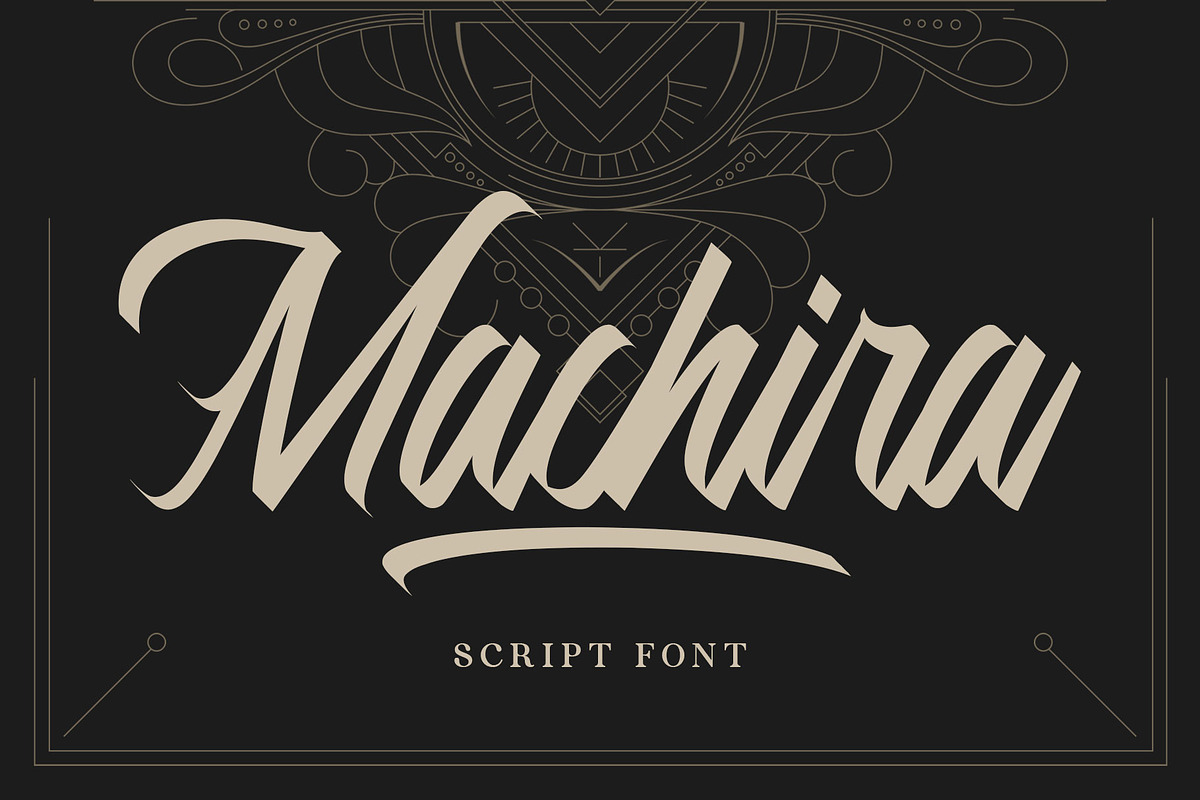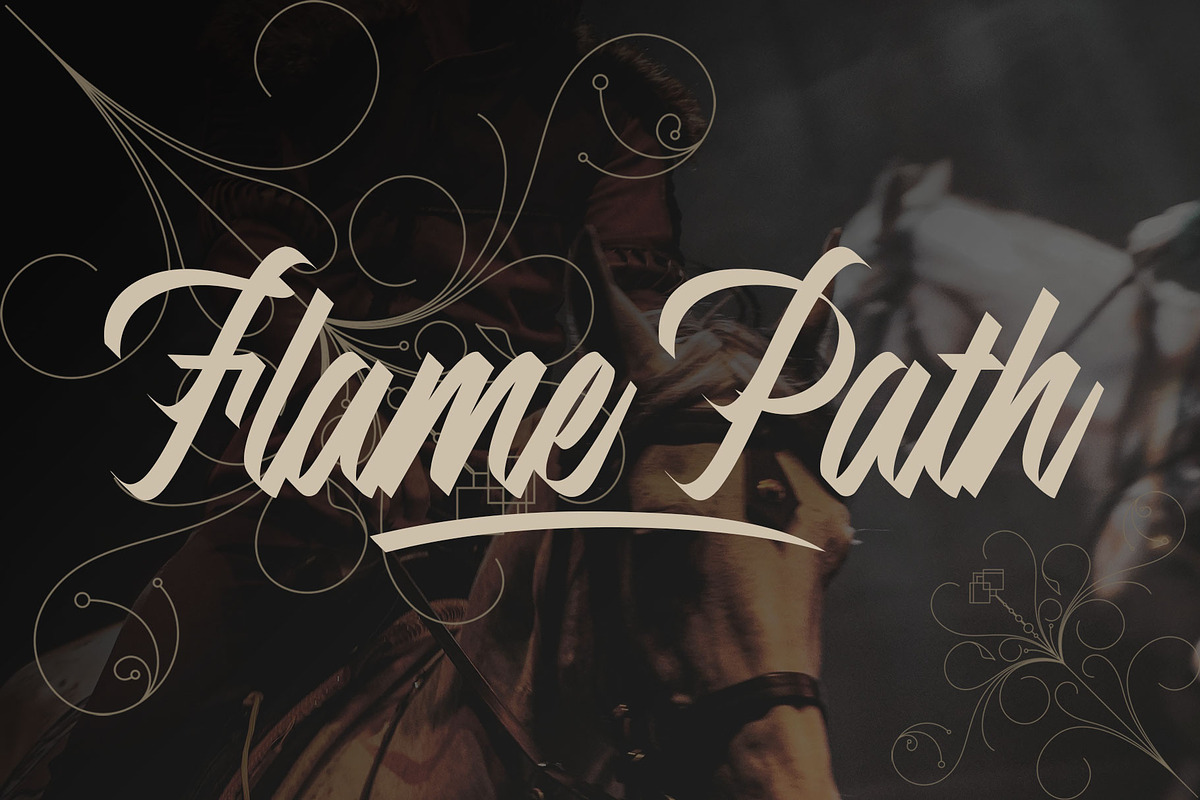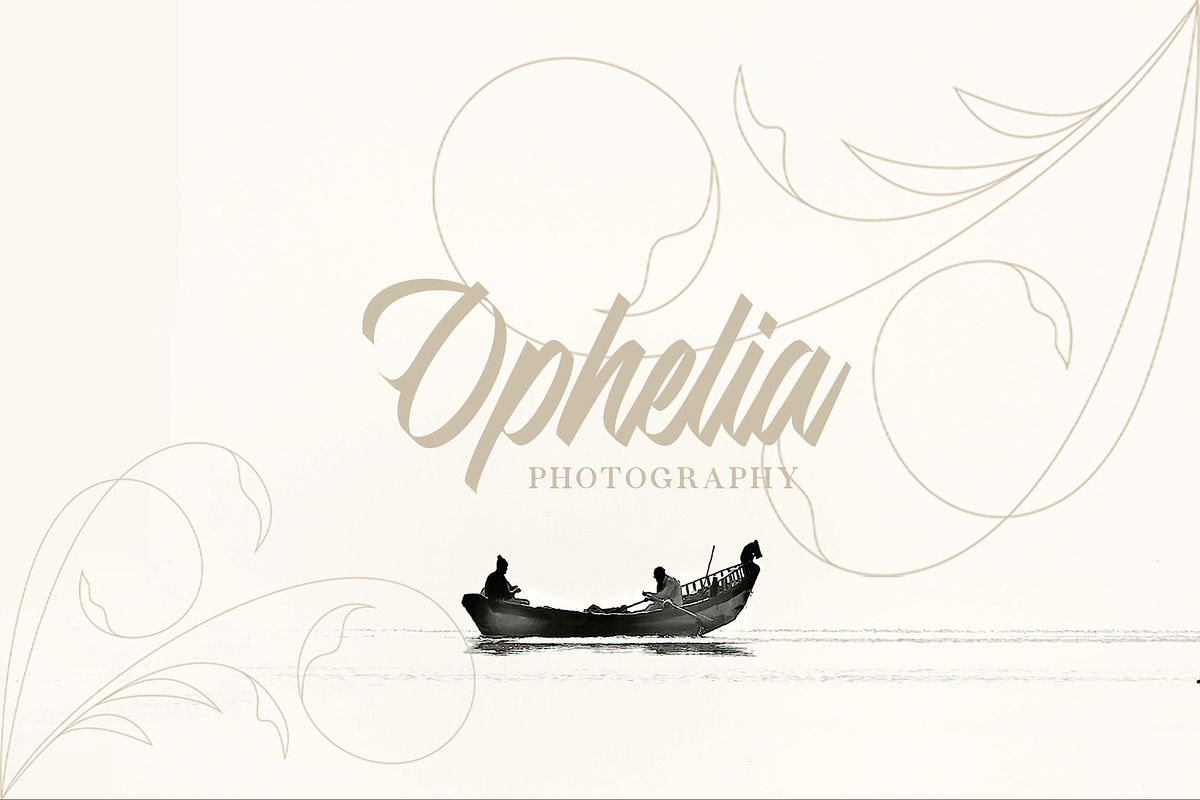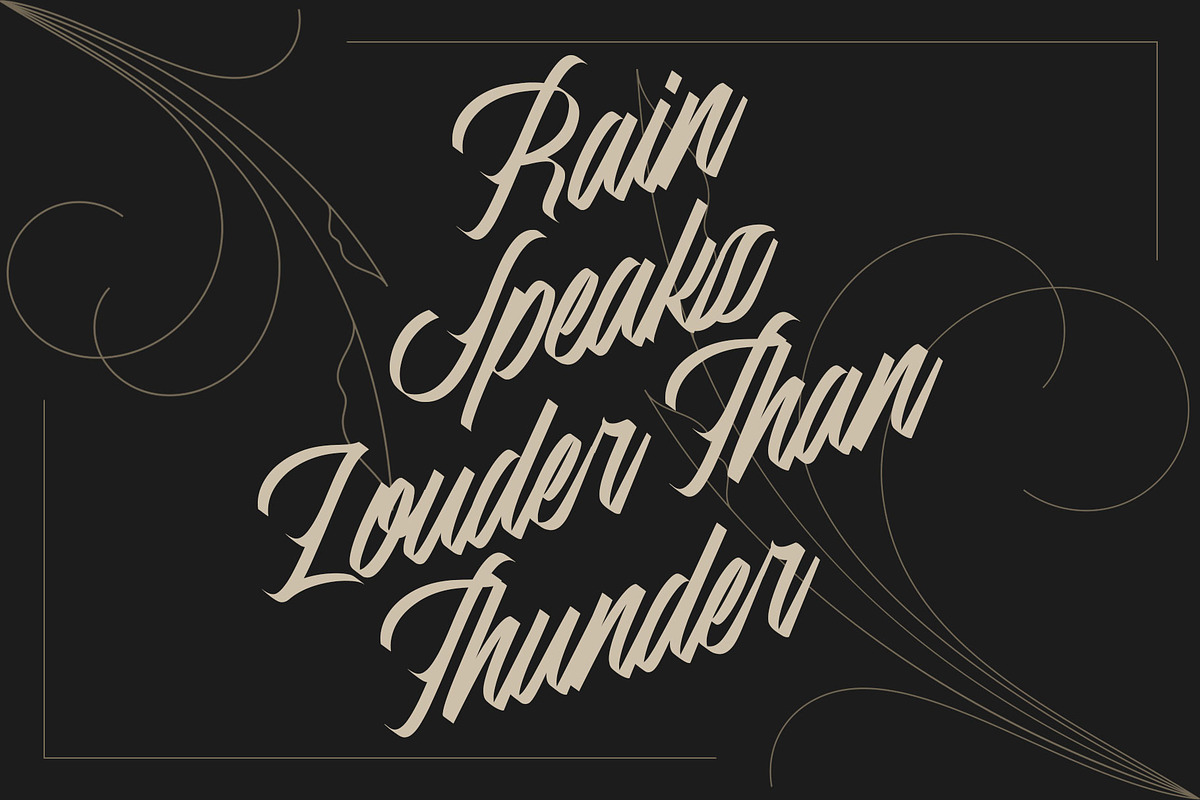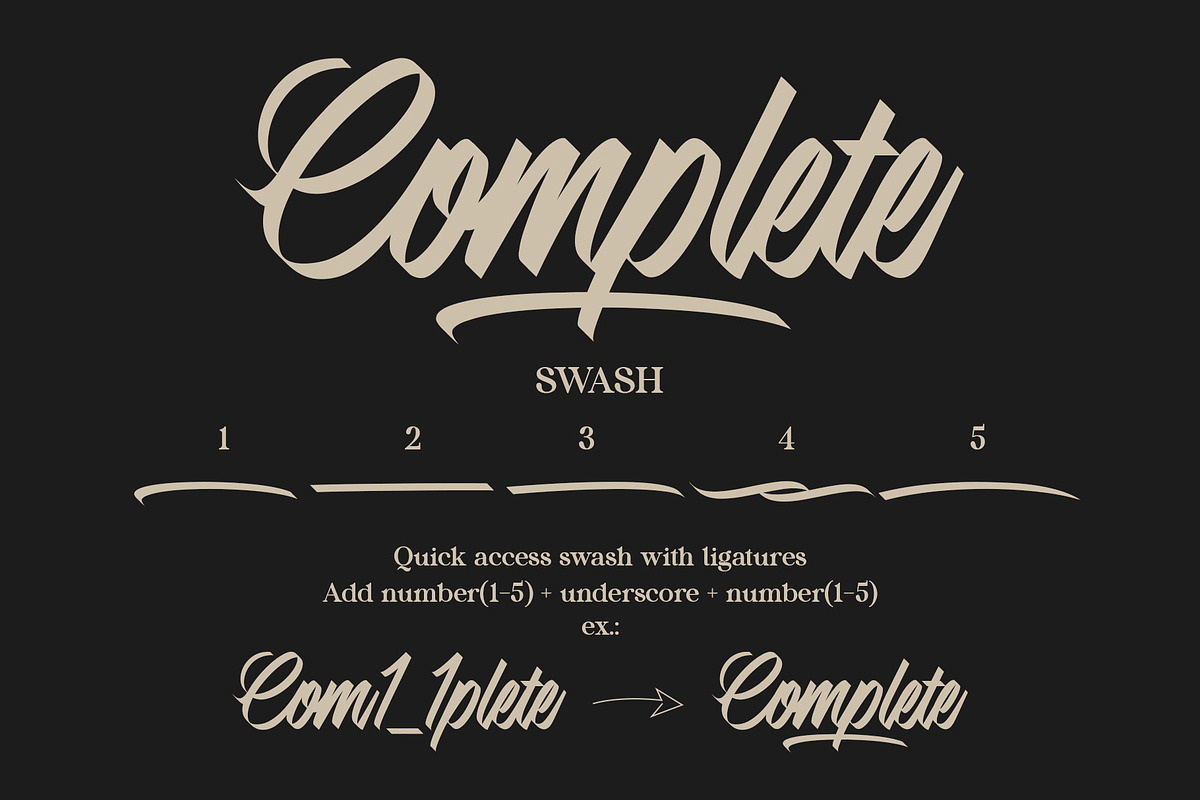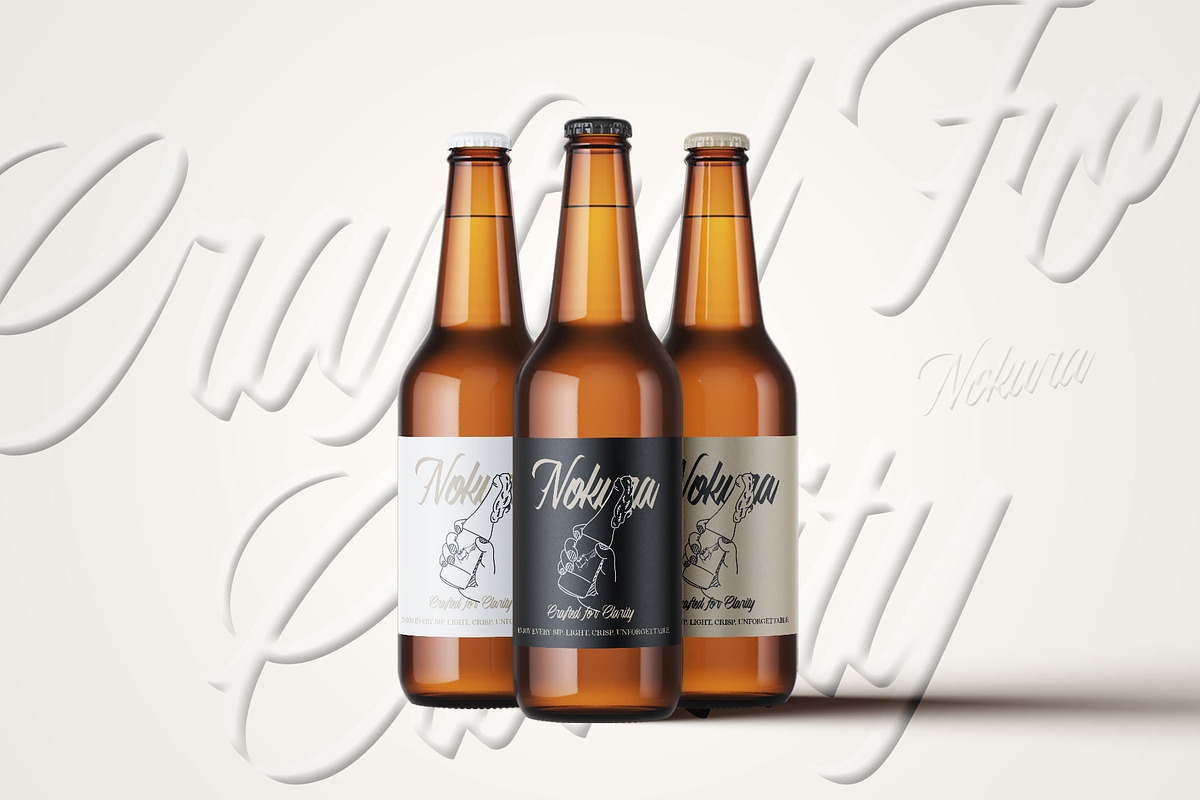
Machira | Script Font
Machira is a script font that blends classic character with a modern touch. Designed with bold strokes and sharp curves, Machira brings a dramatic yet elegant feel, perfect for branding, headlines, posters, logos, and packaging designs that aim to stand out.
Quick access
- Swash: Add number (1–5) + underscore + number (1–5) Example: 1_1, 2_2, 3_3, 4_4, 5_5